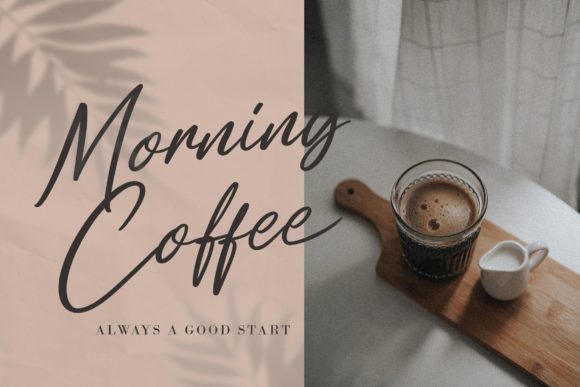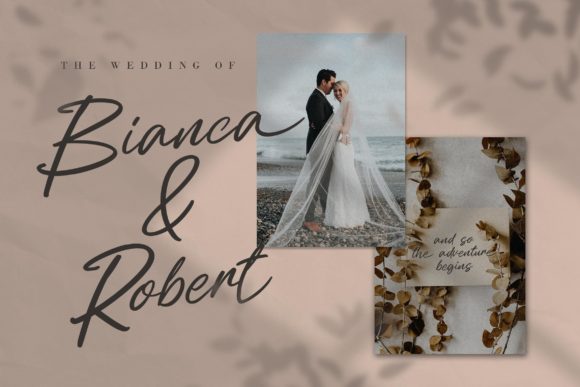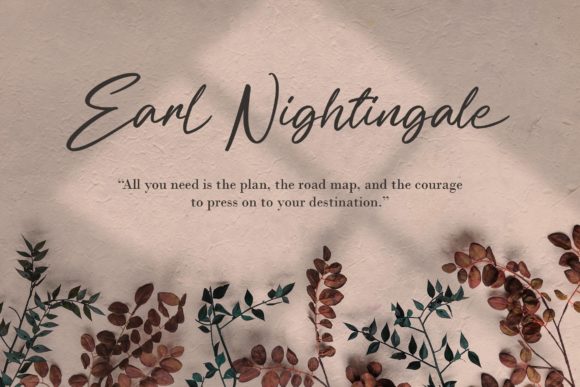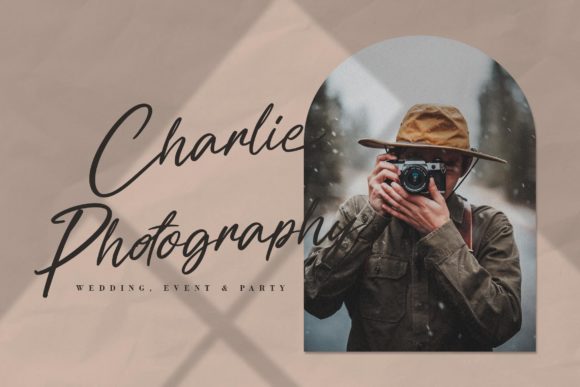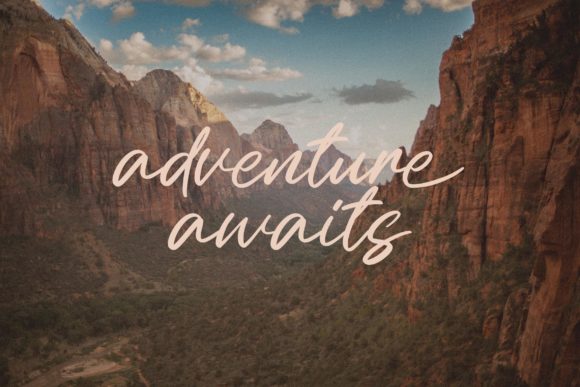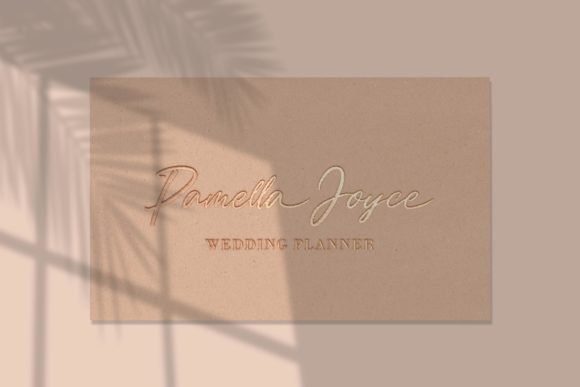
Introducing Bolsettona Font: Elevate Your Designs with Elegance and Sophistication
In the world of typography, a font can make or break a design. For designers and crafters seeking to add a touch of luxury and modernity to their projects, Bolsettona Font is an exceptional choice. This fashionable, sophisticated signature-style script boasts unique curves and an elegant inky flow, making it perfect for a variety of applications, from fashion branding to album covers and logos.
The Distinctive Characteristics of Bolsettona Font
Bolsettona Font stands out with its elegant, classy, and modern appearance. Its distinctive features include:
- Unique Curves: Bolsettona’s curves are meticulously crafted to provide a distinctive and recognizable look. These curves add a level of sophistication and elegance to any design.
- Elegant Inky Flow: The font’s inky flow gives it a luxurious feel, reminiscent of high-end fashion and bespoke products.
- PUA Encoding: Bolsettona is PUA (Private Use Area) encoded, which means that accessing the amazing glyphs and ligatures is straightforward. This feature allows designers to explore a wide range of creative possibilities.
Applications of Bolsettona Font
Given its versatile and stylish nature, Bolsettona Font can be used in a multitude of design projects, including:
- Fashion Branding: From logos to packaging, Bolsettona can help fashion brands convey a sense of sophistication and style.
- Signature Design: As a signature-style script, Bolsettona is ideal for creating elegant and personalized signatures for various applications.
- Album Covers: The font’s modern and classy look makes it suitable for album covers, adding a touch of elegance to music branding.
- Logos and Wordmarks: Bolsettona can be used to create stunning logos and wordmarks that stand out and convey a sense of luxury.
Why Choose Bolsettona Font?
With numerous fonts available, why should designers and crafters choose Bolsettona? Here are a few compelling reasons:
- Uniqueness: Bolsettona’s distinctive curves and inky flow set it apart from more traditional fonts, providing a unique look that can elevate a design.
- Versatility: The font’s elegance and modernity make it suitable for a wide range of applications, from fashion to music.
- Easy to Use: Thanks to PUA encoding, designers can easily access and use the font’s glyphs and ligatures, making the design process more efficient.
Tips for Using Bolsettona Font Effectively
To maximize the impact of Bolsettona Font in your designs, consider the following tips:
- Pair with Complementary Fonts: Bolsettona works well with both serif and sans-serif fonts. Experiment with different pairings to find the perfect combination for your design.
- Experiment with Ligatures: Take advantage of Bolsettona’s ligatures to add a touch of elegance and uniqueness to your text.
- Adjust Font Sizes: Don’t be afraid to experiment with different font sizes to create visual hierarchy and emphasize key elements of your design.
Bolsettona Font is a stylish and sophisticated addition to any designer’s toolkit. Its unique curves, elegant inky flow, and PUA encoding make it an excellent choice for a variety of applications. Whether you’re working on fashion branding, signature design, album covers, or logos, Bolsettona can help elevate your designs to the next level. With its versatility, ease of use, and distinctive look, Bolsettona Font is sure to become a favorite among designers and crafters seeking to add a touch of elegance and modernity to their projects.